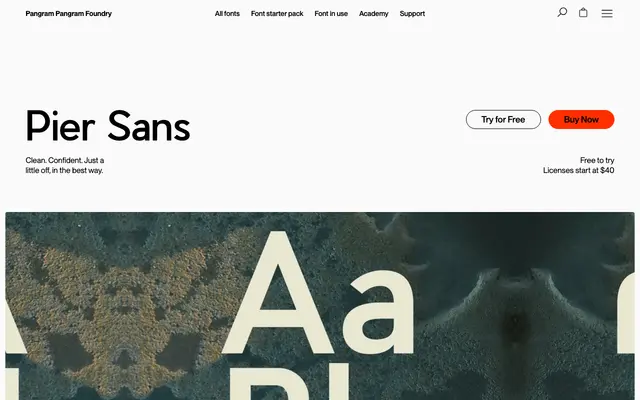
PP Pier Sans
A ten-style geometric grotesque by Mat Desjardins, drawn to read well at both display and small text sizes.
Pier Sans is an early Pangram release by Mat Desjardins, structured as five weights with matching italics. The forms sit between geometric and grotesque, with detail tuned to hold up at both large and small sizes. It works as a quiet brand and interface sans where you want a touch of personality without leaving the workhorse register.